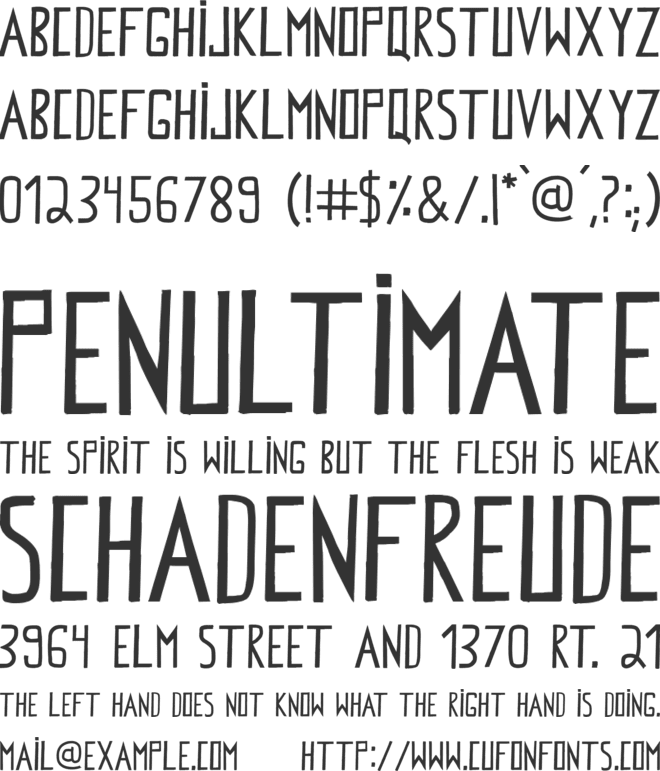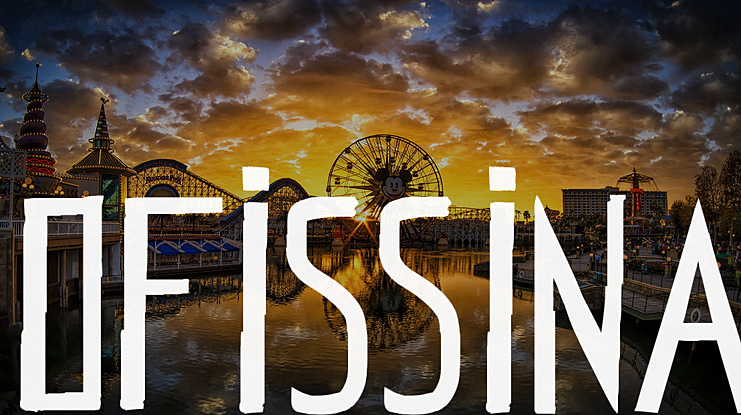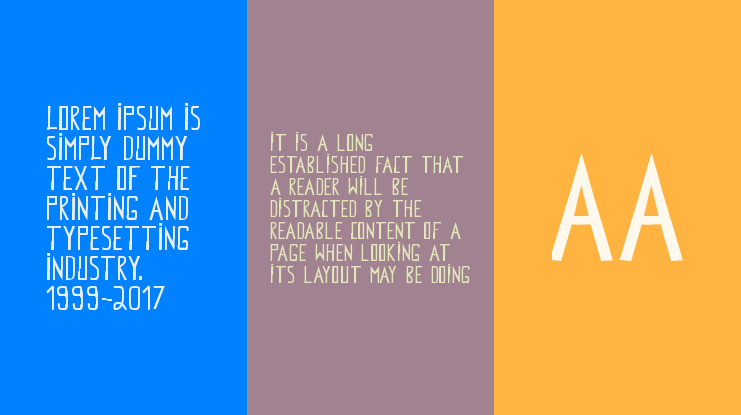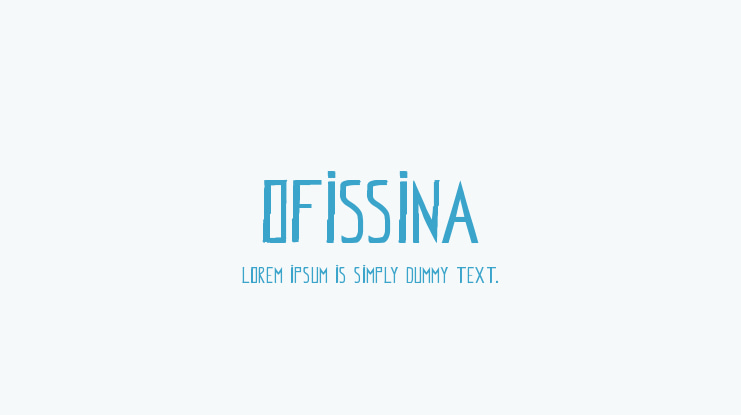
Ofissina Font
From a more attentive look in urban landscape, it is possible to observe the variety and richness of popular expressions. These variety and richness are increasingly becoming visual references for the practice of project activities in design.
The present project is based on the urban vernacular typography, which is a popular expression characterized as an alternative and spontaneous communication instrument produced by manual techniques in order to obtain letters, which fill the landscape of the major urban centers.
The entire typographical process of Ofissina was developed for an end course subject: Graphic Design Project, in the Graphic Design technology course from Centro Universitário Estácio do Ceará under the supervision of Humberto Alves de Araújo.
Ofissina is a typography inspired in Brazilian popular lettering. Sans serif. Geometric. Uppercase. Regular weight. Completely free. It is ideal for titles and small texts, from size 27 on.